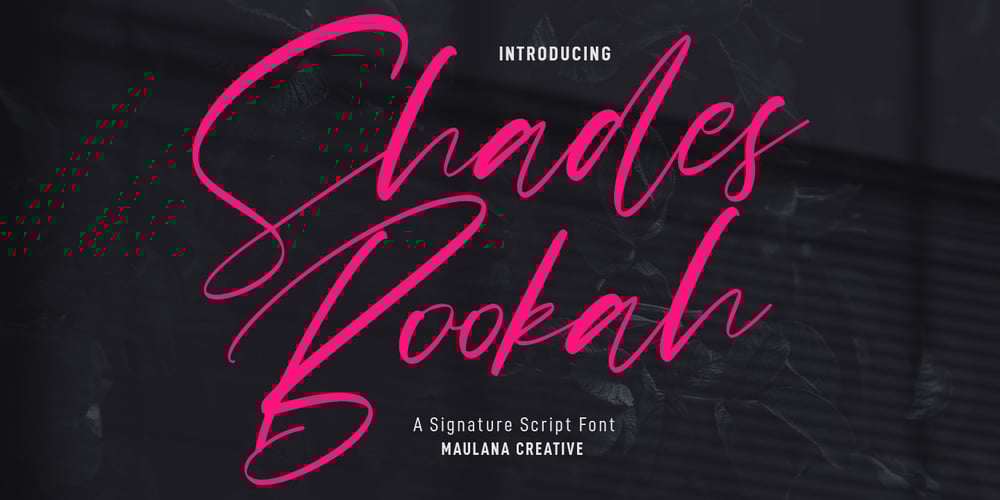
Shades Bookah Font Family was designed by Gilang Maulana and published by Maulana Creative. Shades Bookah contains 1 styles and family package options. Shades Bookah is an expressive modern signature script font. With high contrast stroke, fun character with a bit of ligatures and alternates. To give you an extra creative work. Shades Bookah font support multilingual more than 100+ language. This font is good for logo design, Social media, Movie Titles, Books Titles, a short text even a long text letter and good for your secondary text font with sans or serif. Make a stunning work with Shades Bookah font. Cheers, MaulanaCreative